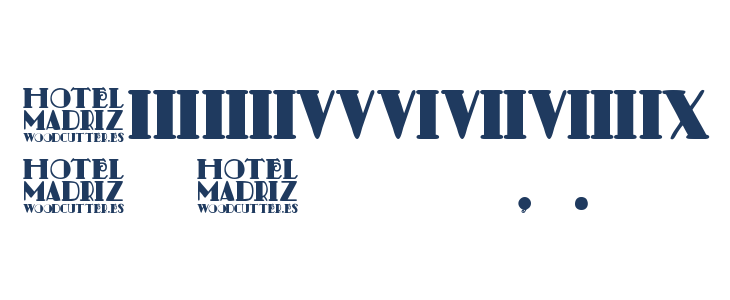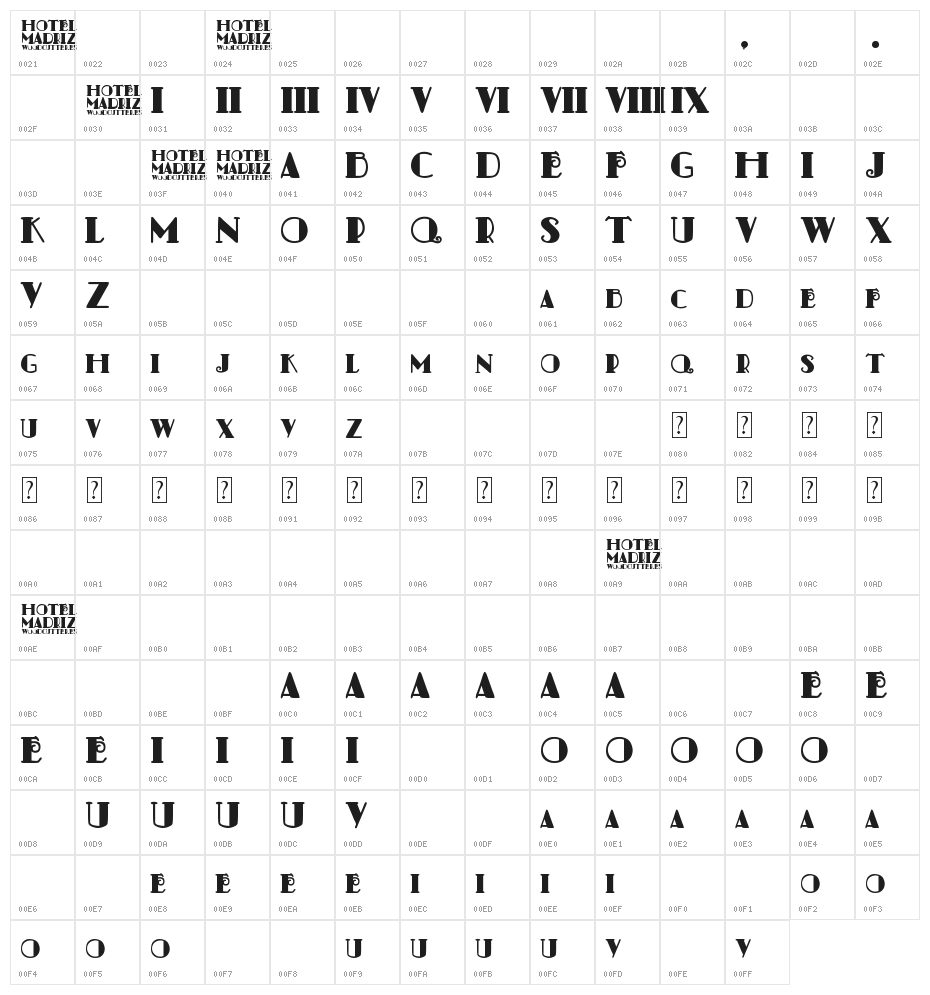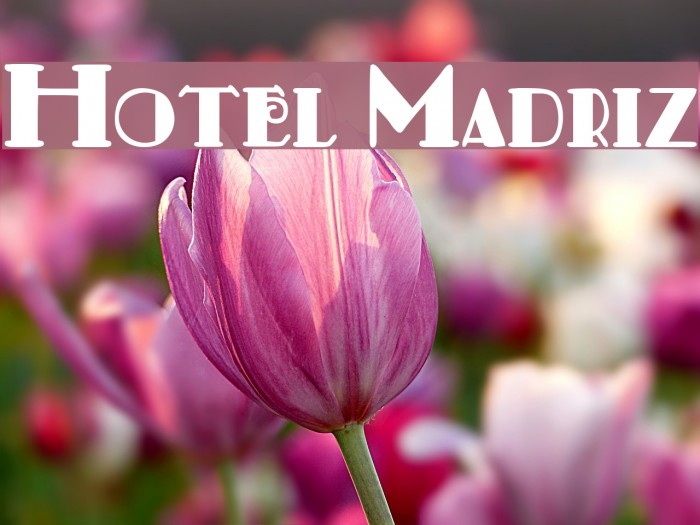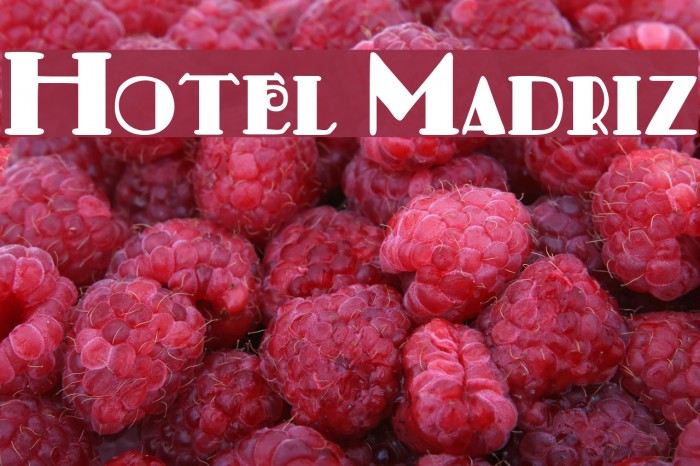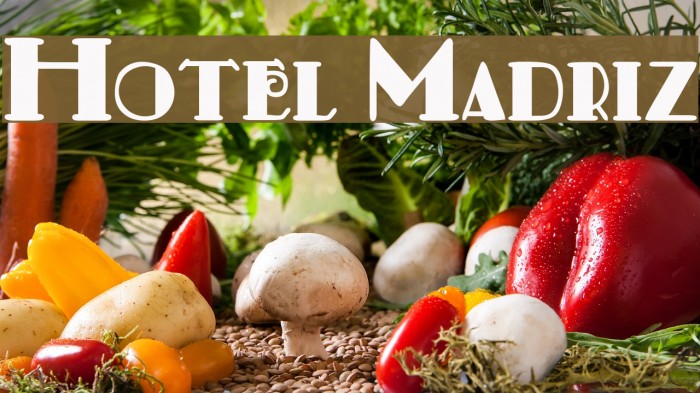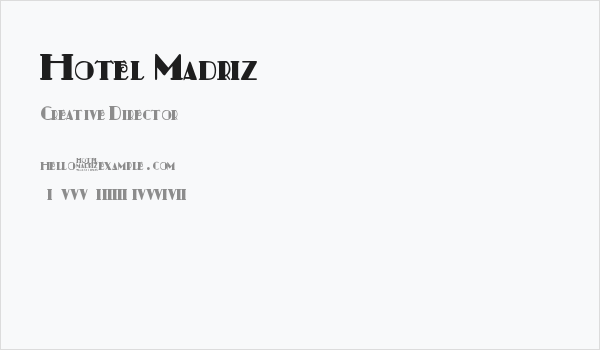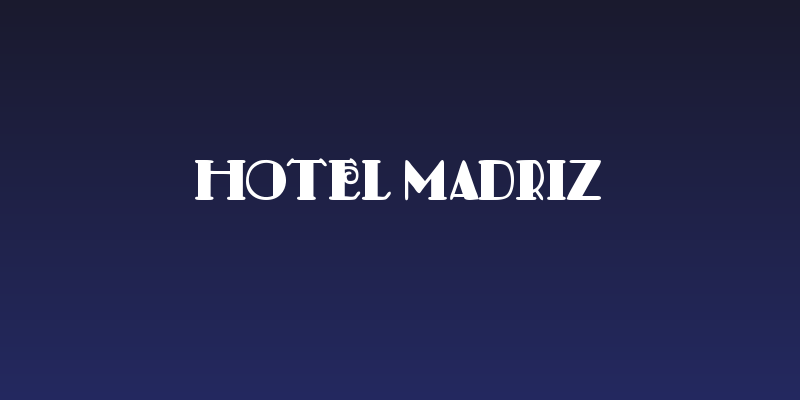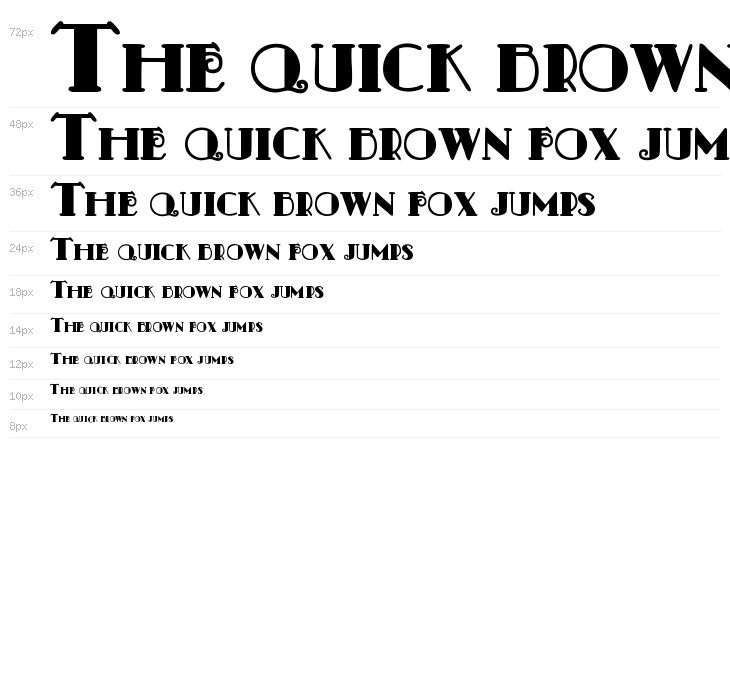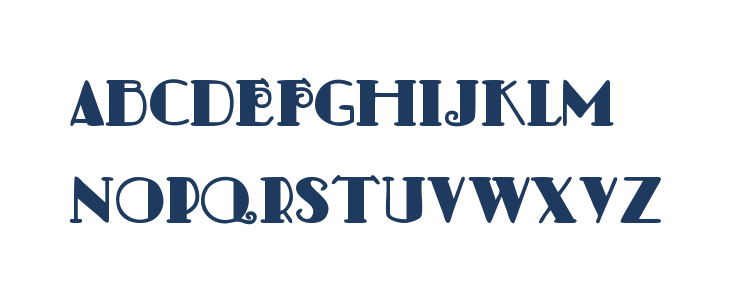
Hotel Madriz Font
Hotel Madriz Description
This font features a bold and decorative style with unique, artistic flourishes on certain characters, giving it a distinct and eye-catching appearance. The uppercase letters are particularly ornate, with some incorporating swirls and curls that add a touch of elegance and whimsy. The overall design is reminiscent of vintage or retro aesthetics, making it suitable for projects that require a classic yet playful look. The font maintains a consistent weight throughout, ensuring readability while still offering a decorative flair. Its boldness makes it ideal for headlines or titles where impact is desired.
| Overall Style | Vintage, Decorative |
| Proposed Projects | Ideal for branding, posters, event invitations, and any project needing a vintage or artistic touch. |